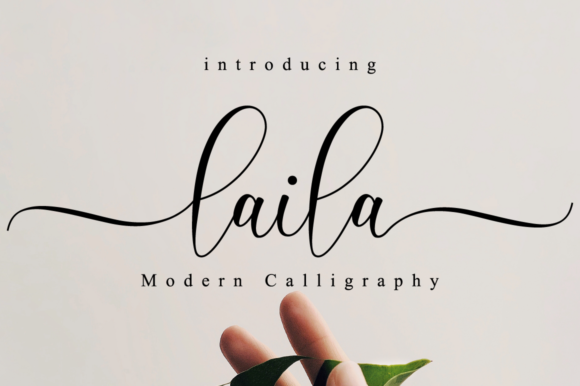
Introducing the stunning Laila Script Font, a masterpiece created by the renowned NissaStudio. This font is the perfect blend of class, elegance, and modernity that is sure to elevate any design project.
With its exquisite handwritten touch, Laila Script Font is ideal for creating stunning logos, eye-catching branding materials, elegant wedding invitations, and personalized stationary. This font adds a unique touch of sophistication to social media posts, advertisements, and all types of marketing collateral.
Laila Script Font offers endless possibilities for designers and creatives looking for something special. It is perfect for creating a memorable and distinct brand identity that stands out in a crowded marketplace. The font is highly legible and versatile, making it suitable for a wide range of design projects.
The beauty of Laila Script Font lies in its ability to evoke emotions and capture the essence of any message. It creates a sense of elegance and sophistication that resonates with the audience and leaves a lasting impression. Whether you are designing for a fashion brand, a luxury hotel, or a high-end jewelry store, Laila Script Font is the perfect choice to create an unforgettable experience.